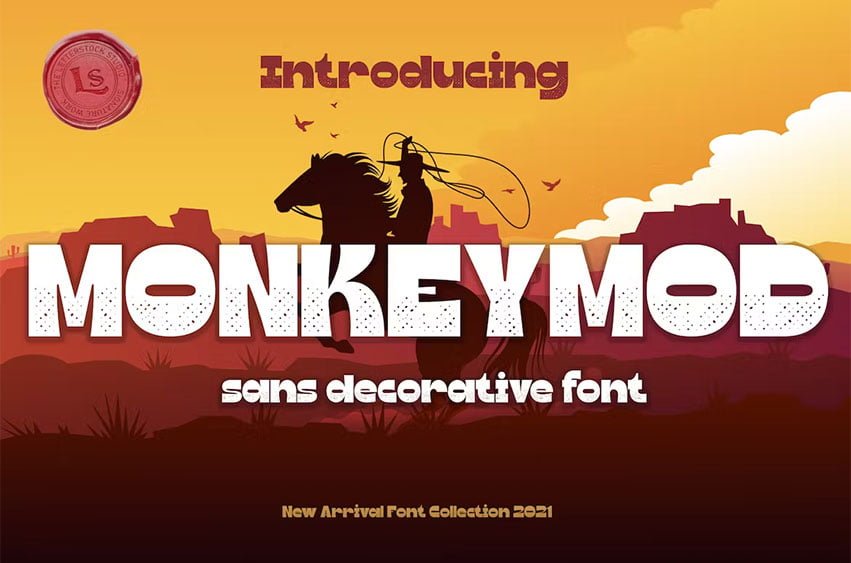
Monkeymod Font This pair was inspired by the Vintage Cowboy Movie poster design that i saw on some place, It was crafted by hand specially to add natural handmade feeling in its brand identity than i make it clean with pentool.
Opentype features Monkeymod font has 200 character set included Monkeymod Font is very good looking in logo, movie poster, retro labels, product packaging, invitations, advertising and others.